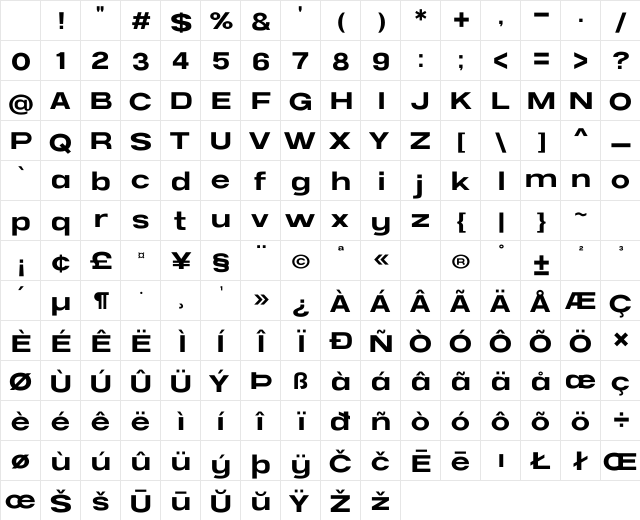
Complete NCS Radhiumz Regular glyph index. Displaying only characters natively supported by NCS Radhiumz Regular font.
NCS Radhiumz is a composed and adaptable typeface that performs quietly and consistently across a wide range of design contexts.